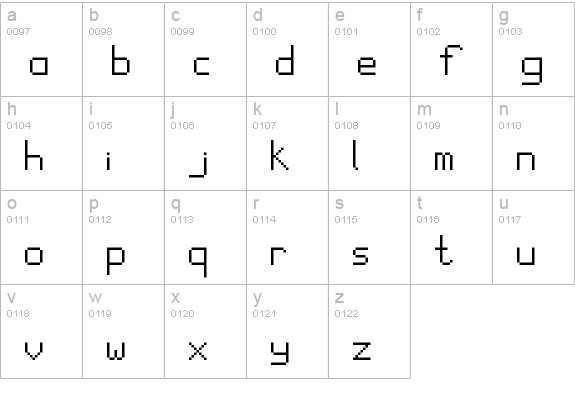
PixelGameFont Font Details
PixelGameFont is a remarkable font that is sure to transport you back to the golden age of video gaming. With its charming pixelated design, this font effortlessly captures the essence of retro gaming nostalgia. Each character is meticulously crafted to resemble the iconic pixel art of classic games, making it perfect for any project that seeks to pay homage to the gaming pioneers of yesteryear. What sets PixelGameFont apart is not only its authentic design, but also its versatility. This font is incredibly adaptable and can be used in a variety of contexts, from designing video game titles and logos to creating captivating social media posts and eye-catching posters. Its bold and distinct appearance ensures that your message will be delivered with impact and style. One of the best things about PixelGameFont is that it is completely free to download. Whether you are a professional designer or an enthusiastic gamer, you can access this font without any cost. FontsMarket.com is proud to offer this fantastic font to the creative community, allowing everyone to unleash their imagination and bring their gaming-inspired visions to life. So, if you're looking for a font that combines the charm of retro gaming with modern versatility, PixelGameFont is the perfect choice. Download it for free at FontsMarket.com and embark on a journey that will transport you to the pixelated wonderland of classic gaming. Let your creativity soar and embrace the magic of PixelGameFont today.